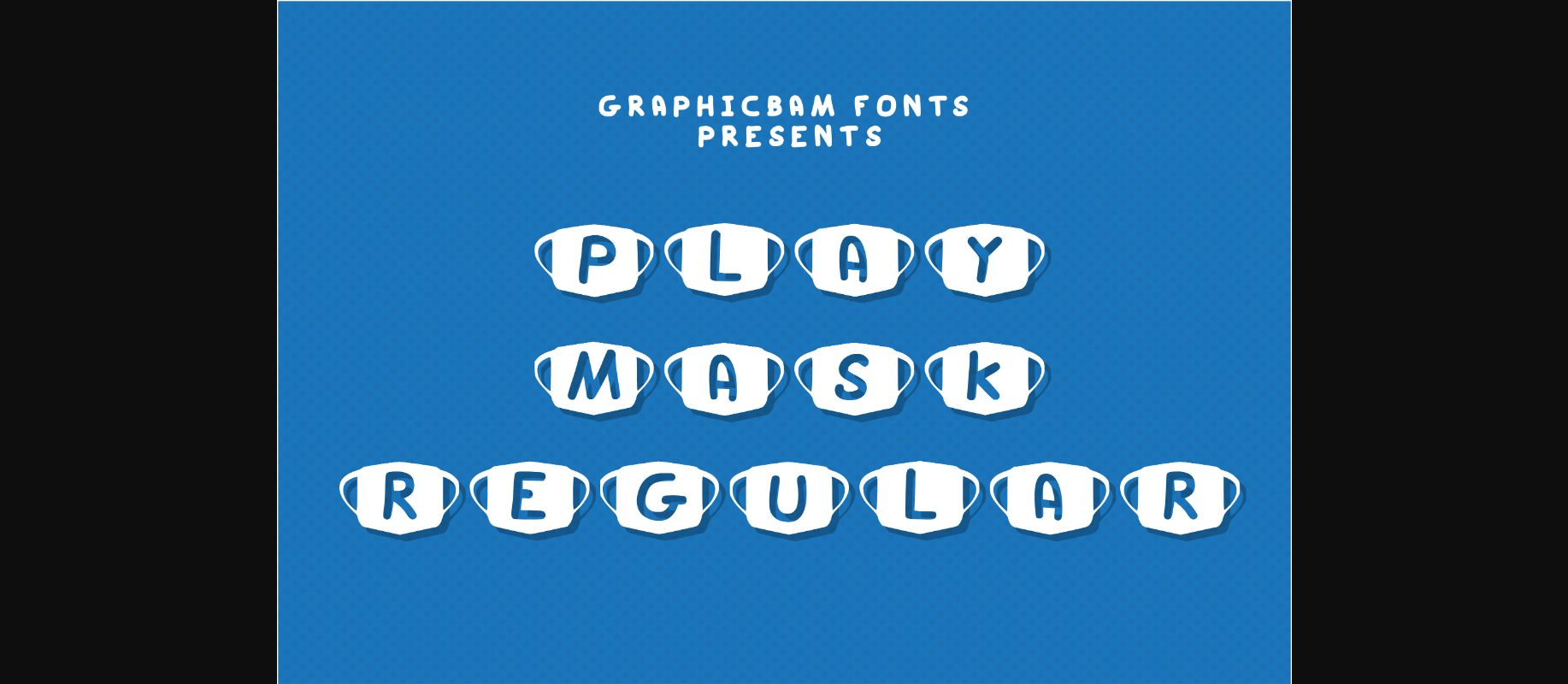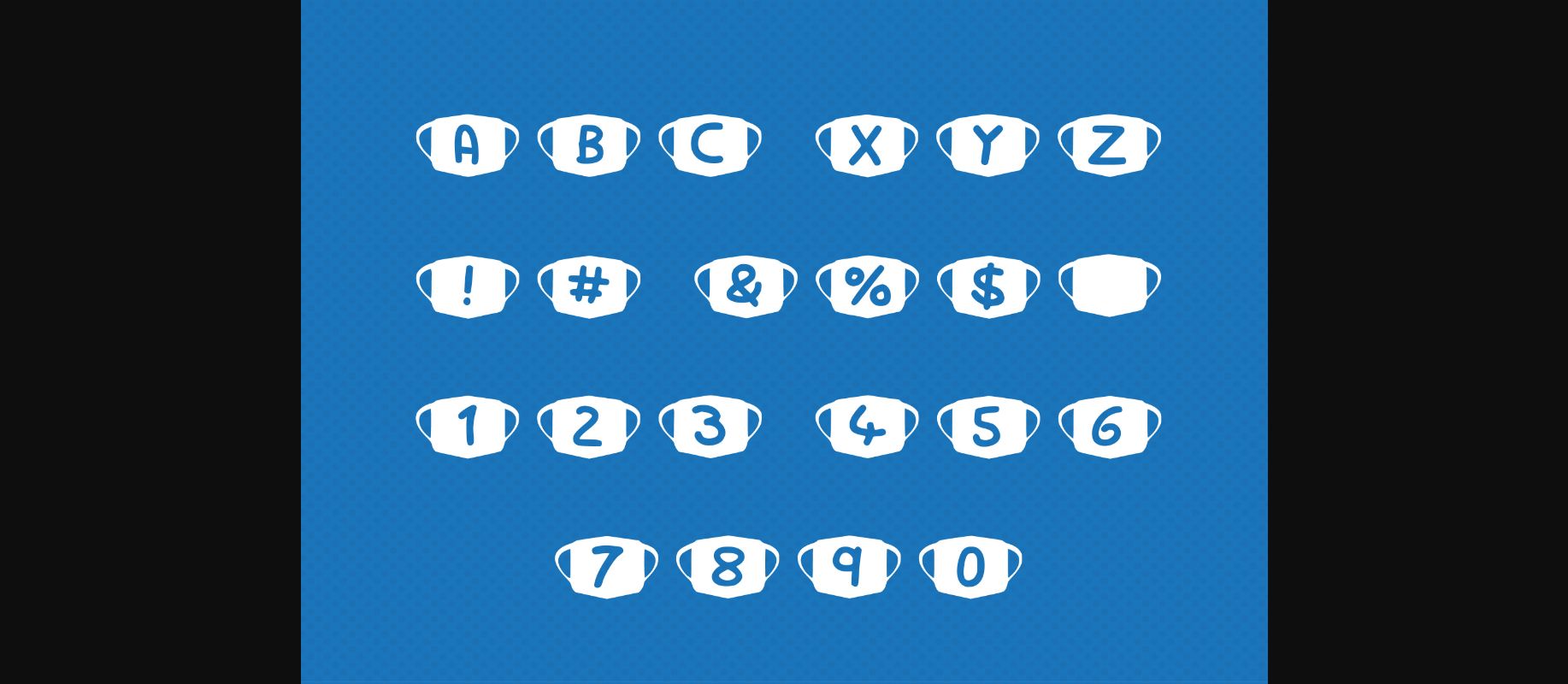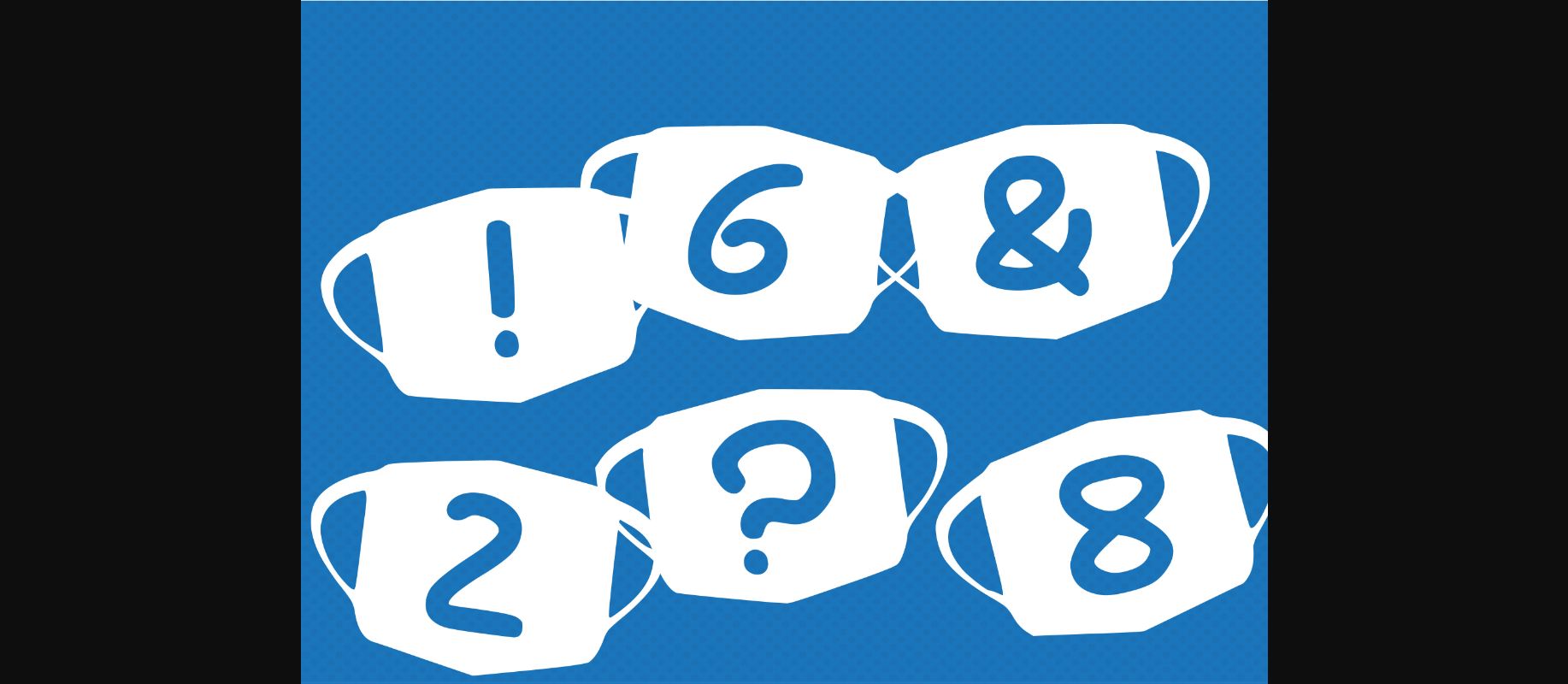
Play Mask Font
About Play Mask Font
Play Mask is a lovely decorative font, featuring a set of masks with a playful, child-like vibe. It embodies trendiness and authenticity and is the perfect choice for any children activity or school project.